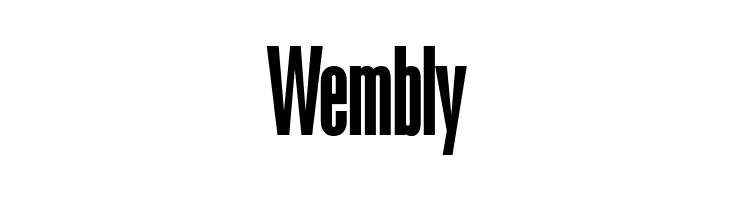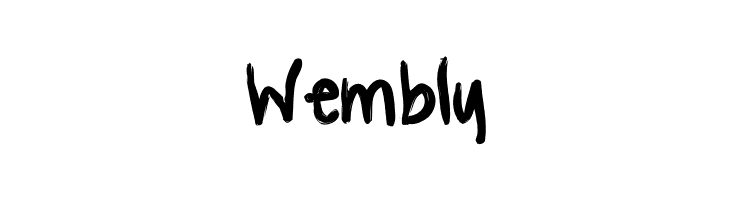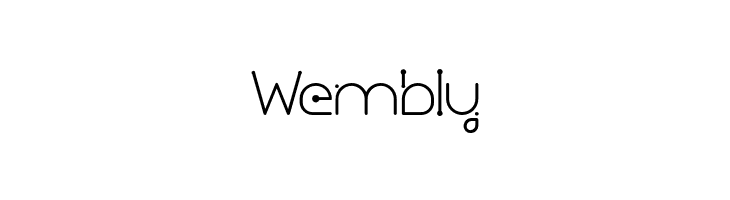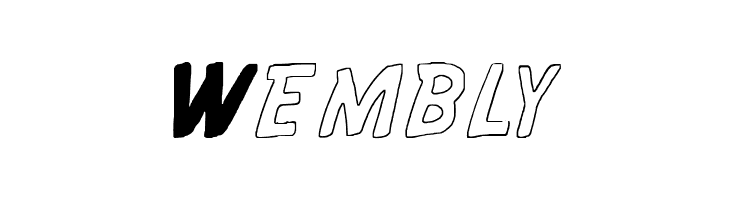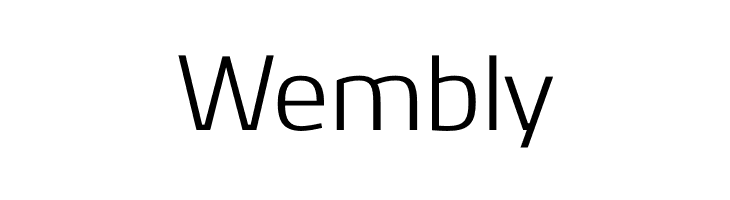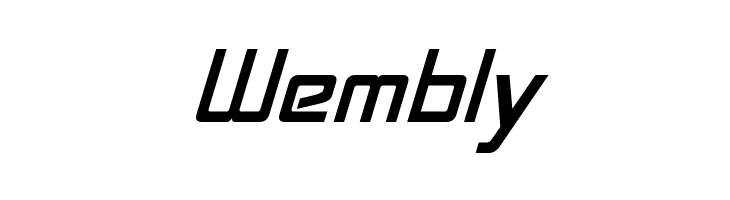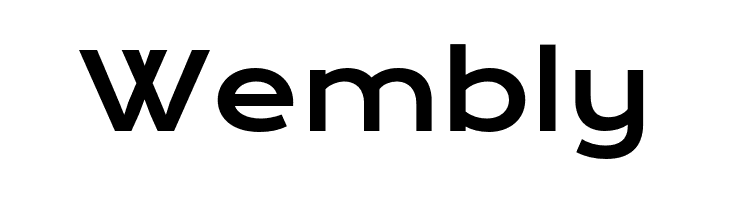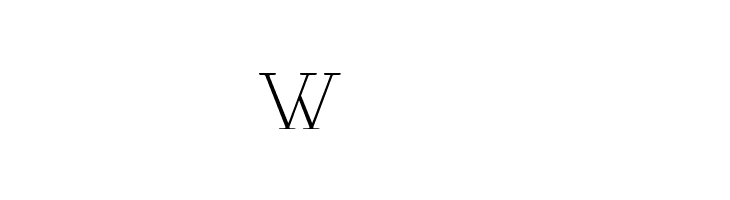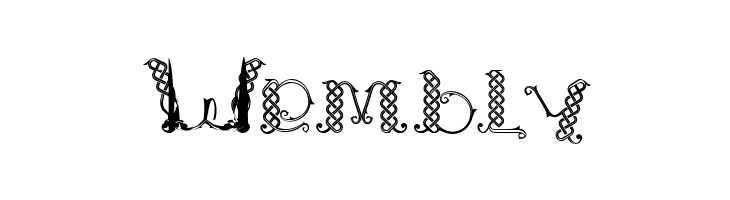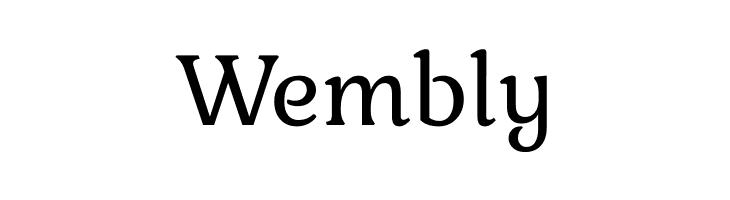
A modern, geometric sans-serif font with excellent readability.
A dynamic and expressive brush script font with fluid, connected strokes.
A bold, distressed font with a grunge texture and rugged appearance.
A modern, geometric font with a sleek and minimalistic design.
A futuristic font with rounded edges and dot motifs, ideal for tech and modern designs.
A futuristic, geometric font with minimalist dots and lines.
A bold, hand-drawn font with a playful and energetic style.
A bold, geometric font with a three-dimensional cube-like design.
A bold, geometric font with sharp angles and consistent stroke width.
A classic serif font with elegant curves and moderate contrast, ideal for formal and traditional uses.
A modern, clean sans-serif font with uniform stroke weight and balanced proportions.
A bold, geometric font with angular shapes and a modern aesthetic.
A bold, angular font with a geometric and edgy design.
A modern, elegant serif font with high contrast and artistic flair.
An elegant and artistic script font with flowing, intricate letterforms.
A hand-drawn, ink-like font with bold, dynamic strokes and an artistic flair.
A sleek, modern font with thin, geometric lines and a minimalistic design.
A modern, minimalist font with thin, clean lines and a geometric influence.
A modern, geometric font with clean lines and a minimalist style.
A modern, geometric font with clean, rounded edges and consistent stroke width.
An ornate and decorative typeface with intricate swirls and lattice-like patterns.
A modern, geometric font with clean lines and a structured appearance.
A bold, geometric font with a modern and clean design.
A bold, italicized font with a modern, angular design.
A sleek, modern italic font with a geometric structure and dynamic style.
A geometric, modern font with clean lines and uniform stroke width.
A sleek, modern oblique font with a dynamic and professional appearance.